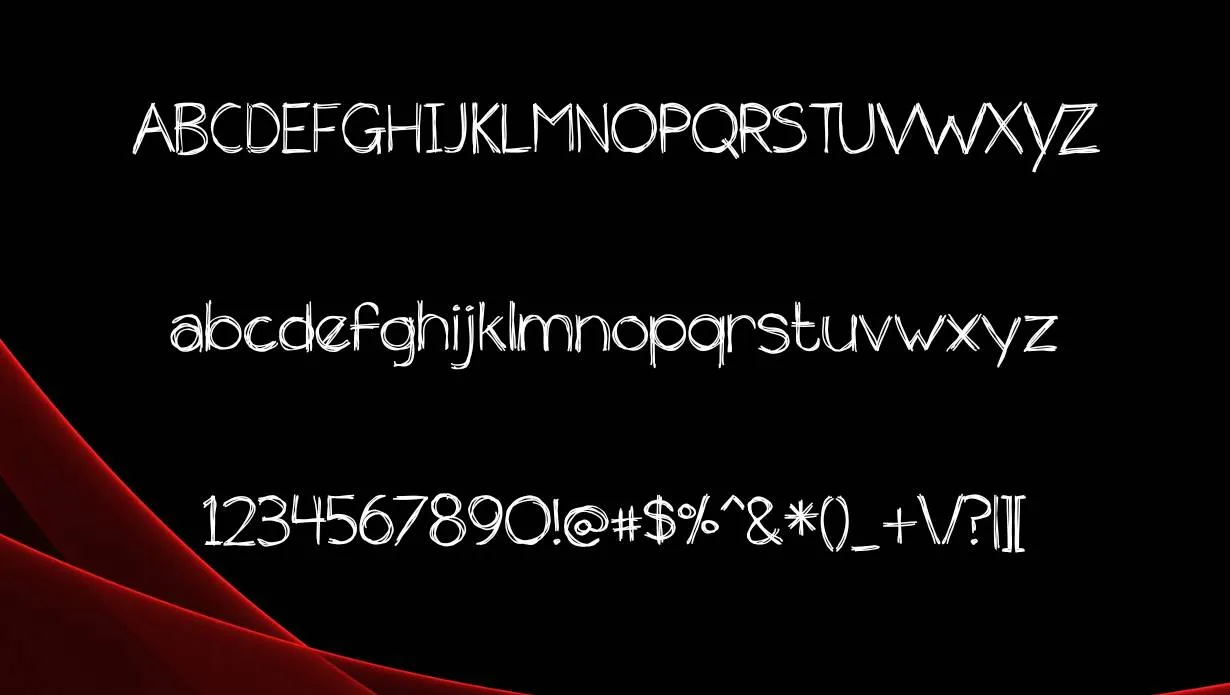
The Unseen font is known for its enigmatic and artistic style. Often utilized in creative projects, posters, or designs seeking a unique and intriguing appearance, this font adds an element of mystery and creativity to the text.
| Name | The Unseen Font |
| Designer | Brittney Murphy Design |
Its unconventional and artsy design captivates attention, introducing an element of intrigue and a touch of the unexpected to designs.